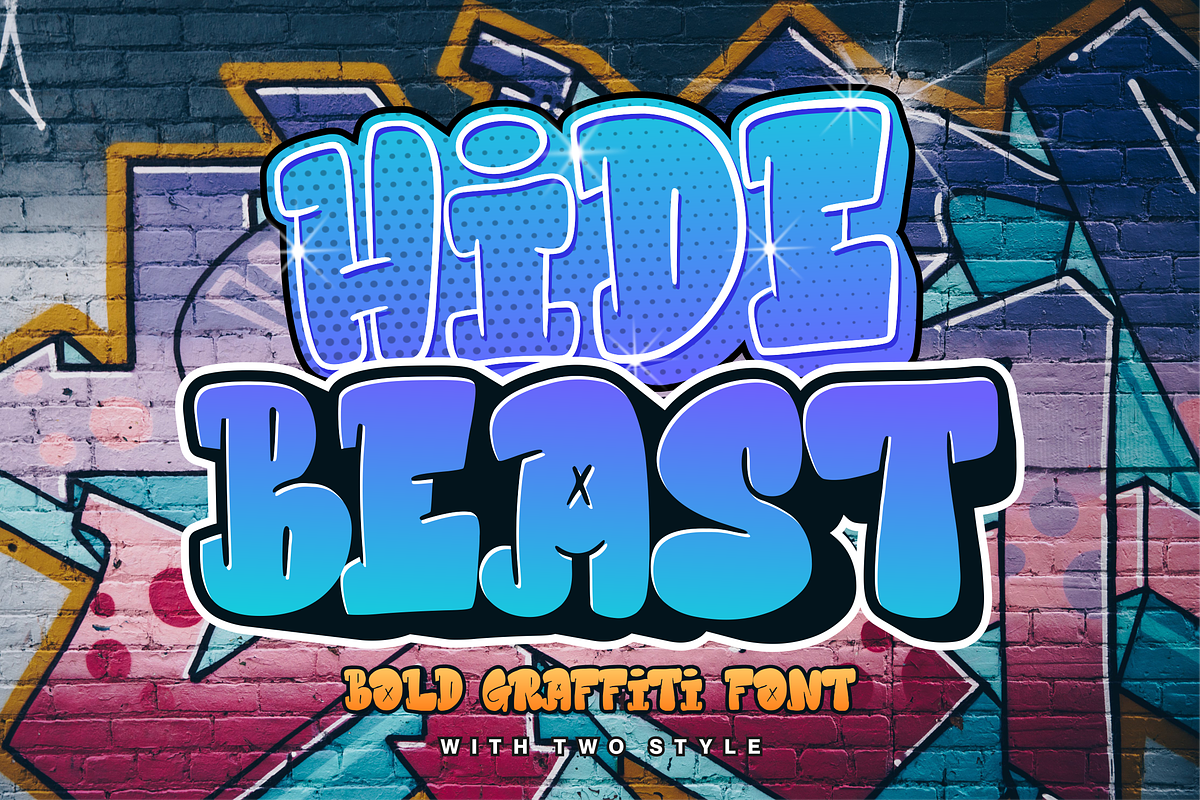
Hidebeast a Bold Graffiti Font Free Download
Hidebeast a Bold Graffiti Font Free Download is an urban-inspired typeface that explodes with attitude and raw street energy. With its thick, edgy strokes and spray-paint style texture, this font is perfect for graffiti art, hip-hop branding, streetwear designs, music posters, and bold digital graphics that need to make a statement.
Hidebeast captures the rebellious spirit of graffiti culture, blending aggressive flair with strong visual impact. It’s loud, unapologetic, and full of personality—ideal for designs that want to push boundaries and grab attention.